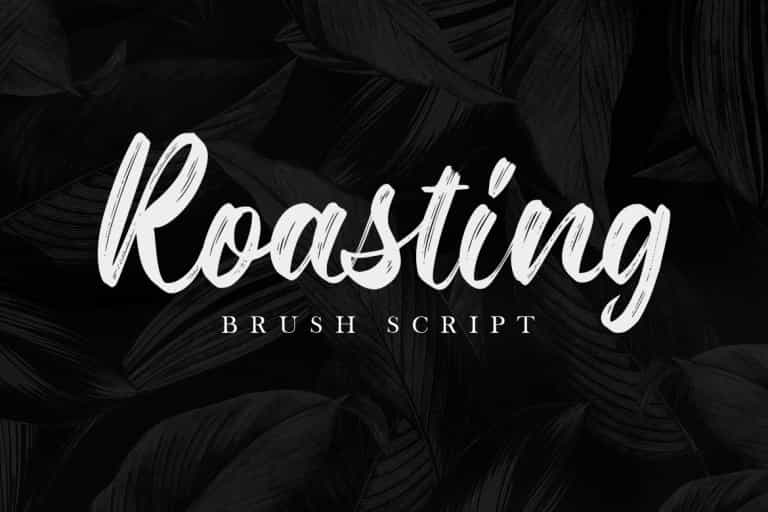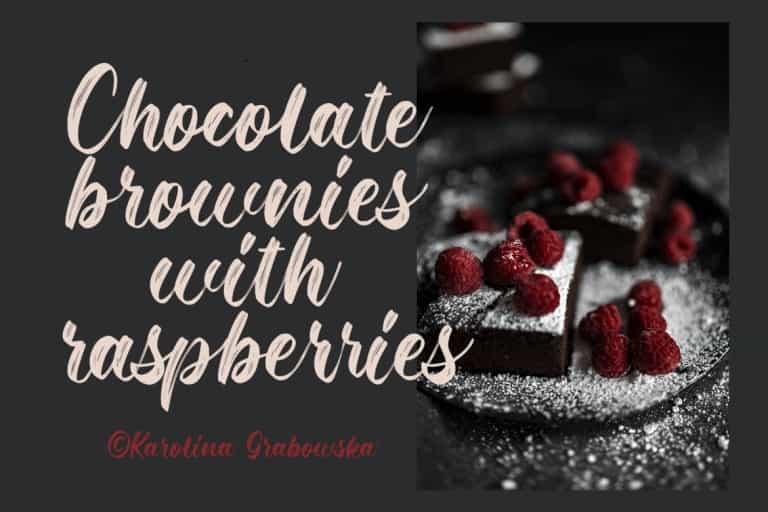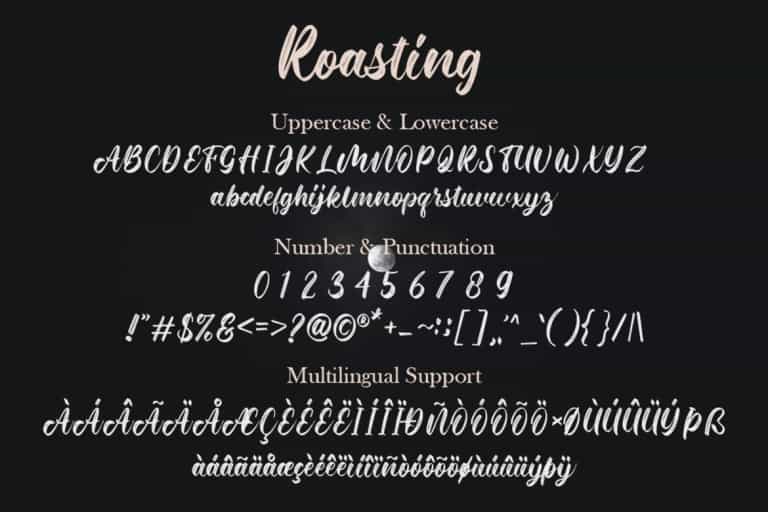
Discover Roasting Font, part of the Brush collection—a versatile and unique font perfect for adding a personal touch to your projects. Download it for free and enjoy crafting designs with style, from invitations to social media posts. This font is available exclusively for personal use, giving you the freedom to create without limits. Unlock your creativity with Roasting Font today!
Roasting is a beautiful handwritten script type with an irresistibly sweet look, perfect for various uses such as wedding invitations, letters, headings, T-shirts and signage labels, news posters badges and posters – to name but a few! Its brushstrokes create a gentle flow.